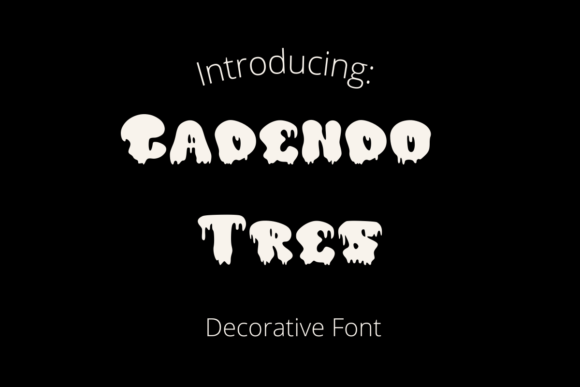
Cadendo Tres Font: Adding a Touch of Whimsy to Your Designs
Are you looking for a font that can add a dash of playfulness and creativity to your projects? Look no further than the Cadendo Tres Font! This delightful font is designed to bring a joyful flair to your designs, making it perfect for children’s books, playful graphics, and any project that seeks to capture a lighthearted atmosphere.
The Charm of Cadendo Tres Font
The Cadendo Tres Font is a charming and creative font that is sure to capture the hearts of designers and crafters alike. Its unique design elements and playful features make it an ideal choice for projects that require a touch of whimsy and fun. Whether you’re working on a children’s book, a playful graphic, or a design that seeks to bring a smile to people’s faces, this font is sure to deliver.
Key Features of Cadendo Tres Font
- Playful Design: The Cadendo Tres Font features a playful design that is sure to add a touch of whimsy to your projects.
- Charming and Creative: This font is designed to be charming and creative, making it perfect for projects that require a unique and eye-catching design.
- Perfect for Children’s Books: The Cadendo Tres Font is ideal for children’s books, as its playful design is sure to capture the attention of young readers.
- Lighthearted Atmosphere: This font is perfect for designs that seek to capture a lighthearted atmosphere, making it ideal for playful graphics and other fun projects.
Using Cadendo Tres Font in Your Designs
Tips for Getting the Most Out of Cadendo Tres Font
- Experiment with Different Sizes: The Cadendo Tres Font looks great in a variety of sizes, so don’t be afraid to experiment and find the perfect size for your project.
- Pair with Other Fonts: This font pairs well with other playful fonts, so consider pairing it with a complementary font to add depth and interest to your design.
- Use in Combination with Color: The Cadendo Tres Font looks great in a variety of colors, so consider using it in combination with bright and bold colors to add visual interest to your design.
Why Designers and Crafters Love Cadendo Tres Font
Designers and crafters love the Cadendo Tres Font for its unique and playful design. It’s a font that can add a touch of whimsy and fun to any project, making it perfect for designers and crafters who want to create unique and eye-catching designs. Whether you’re working on a children’s book, a playful graphic, or a design that seeks to capture a lighthearted atmosphere, this font is sure to deliver.
In conclusion, the Cadendo Tres Font is a delightful font that is sure to add a touch of whimsy and playfulness to your designs. Its charming and creative design makes it perfect for children’s books, playful graphics, and designs that seek to capture a lighthearted atmosphere. With its easy-to-use design and compatibility with a wide range of design applications, this font is a must-have for designers and crafters who want to create unique and eye-catching designs.